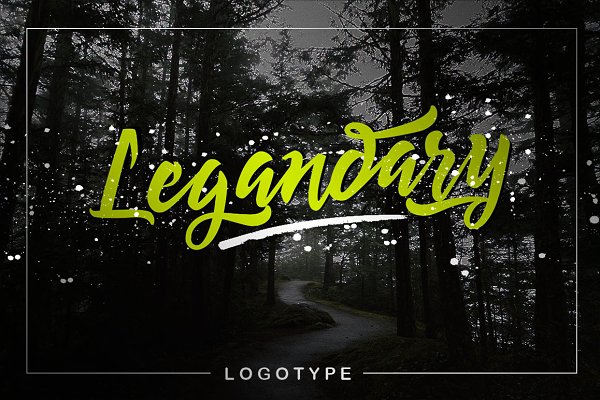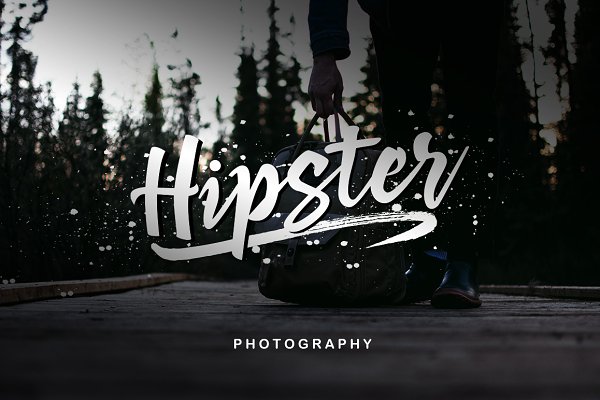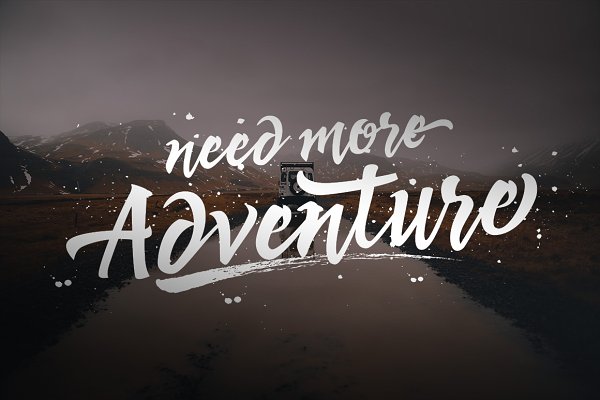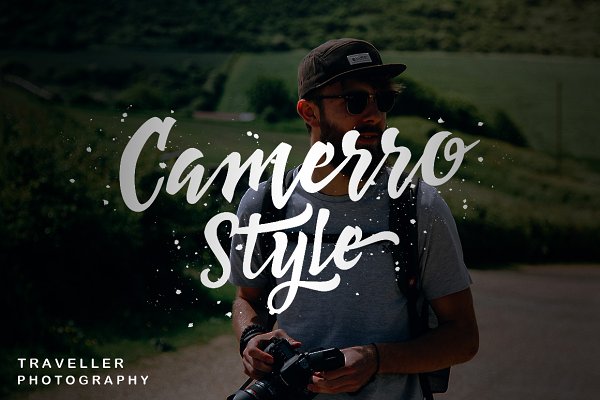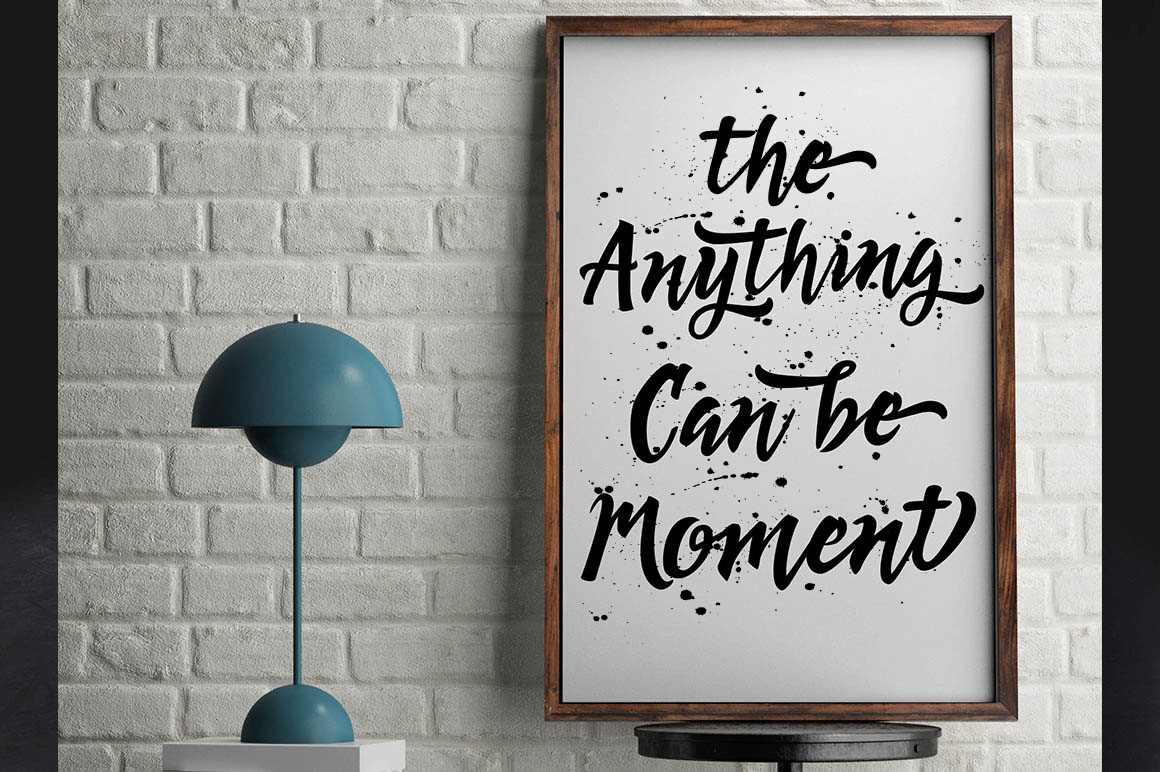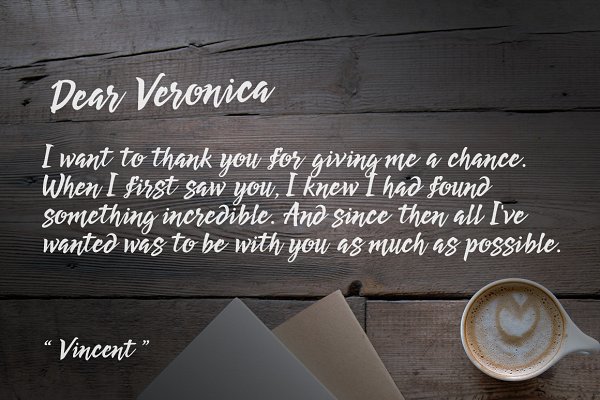
Introduction to Redmirable Font
Redmirable is a remarkably versatile script, and can be used for a large range of project types.
With some splatter texture and grain, Redmirable is an eye-catching font to be used for your boldest creative projects .